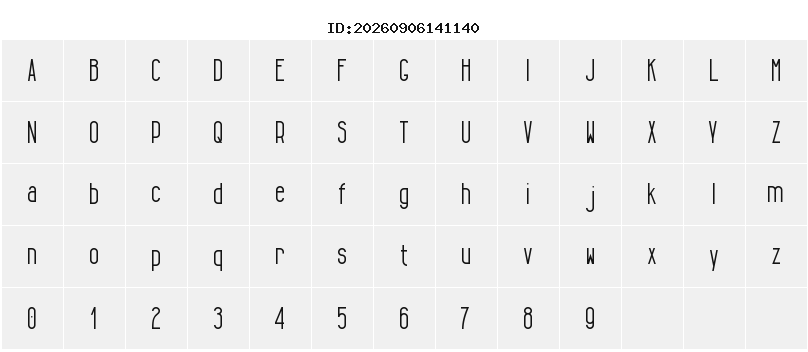
Tall & Lean Preview
• Font Name: Tall & Lean
• Full Font Name: Tall & Lean
• Version: Version 1.00 February 4, 2014, initial release
• Designer: Stephen Knouse
• Manufacturer: Essqué Productions
About Tall & Lean.ttf
Tall & Lean.ttf is a modern, elegant sans-serif font designed for ultimate readability and visual harmony. Perfect for branding, headlines, web design, and print materials.